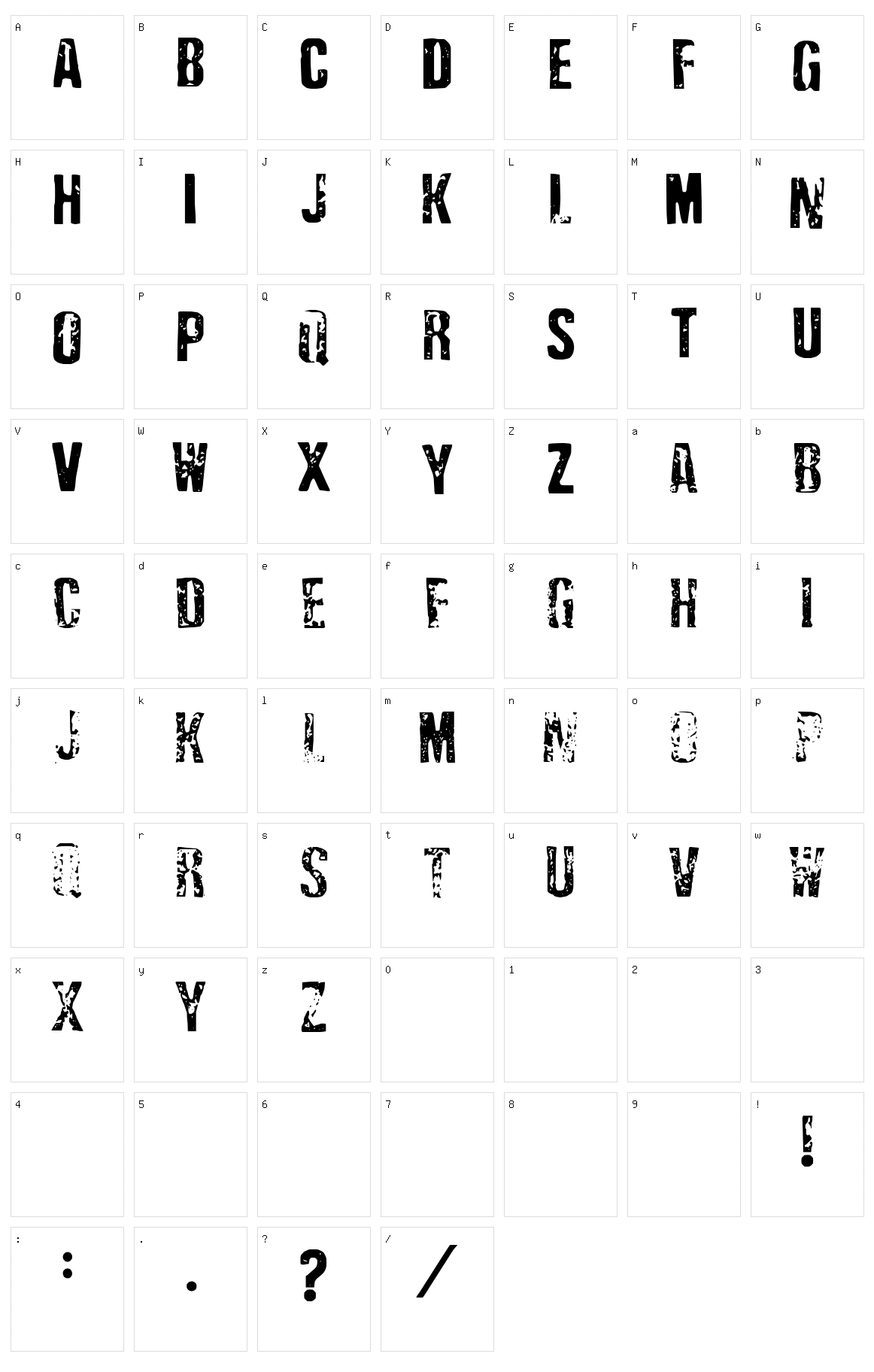
D E P R E S S I O N I S T 3
This is the most perfect font I ever done. Made from rubber
stamps, its a package you can get in a toystore. it says:
'learn the alphabet' in swedish on the frontside.